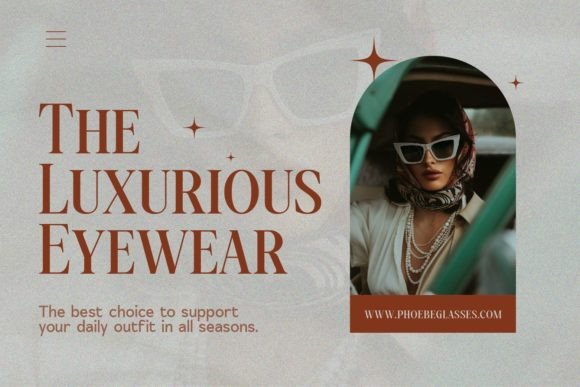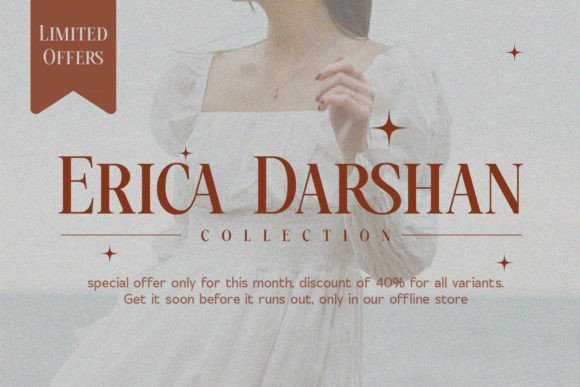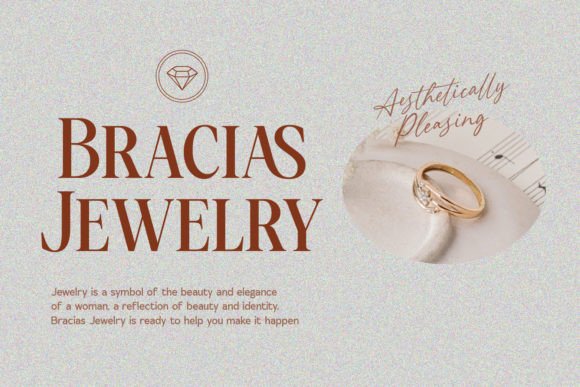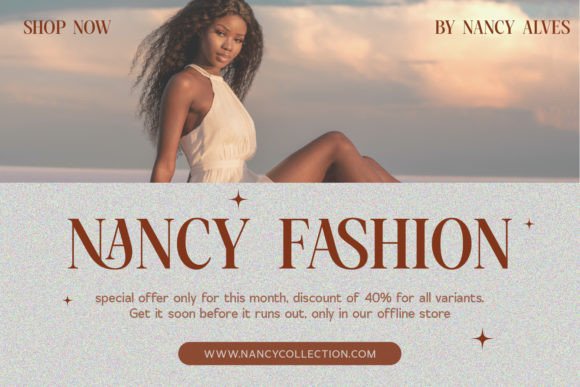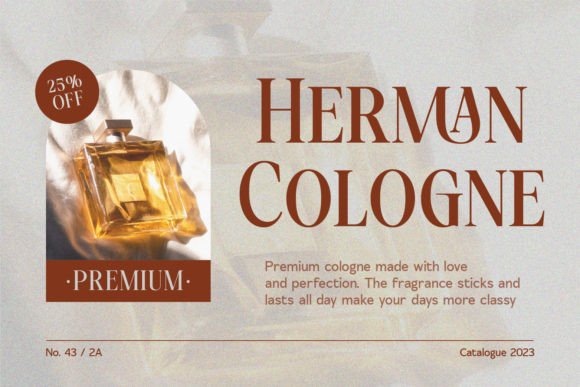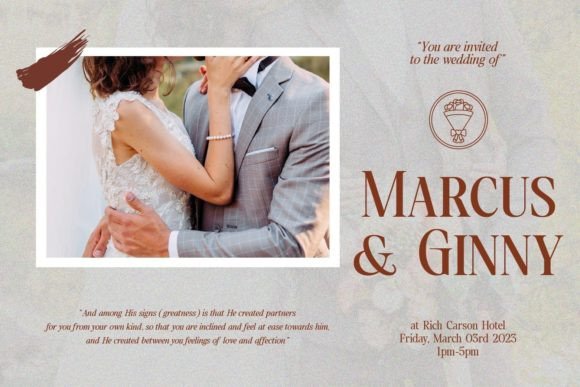
Introducing Calivoca Font: Elevate Your Designs with Elegance and Sophistication
In the world of typography, fonts play a crucial role in conveying the tone and aesthetic of a design. For those seeking a sophisticated and charming all-caps serif font with a fashionable touch, Calivoca is an exceptional choice. Specifically designed for luxury, elegant, and feminine projects, Calivoca is perfectly suited for creating modern, chic designs that exude refinement and poise.
What Makes Calivoca Stand Out?
Calivoca boasts a unique blend of classic serifs and contemporary flair, making it an ideal font for designers and crafters aiming to create high-end visuals. Its elegant and refined appearance is perfect for projects that demand a touch of sophistication, such as luxury logos and branding, classy editorial designs, and woman’s magazines.
Perfect for Luxury and Feminine Projects
Calivoca’s design is tailored to meet the needs of luxury and feminine projects. Its sophisticated and charming aesthetic makes it an excellent fit for:
• Luxury logo and branding: Create a lasting impression with a font that exudes elegance and refinement.
• Classy editorial design: Elevate your publications with a font that commands attention and respect.
• Woman’s magazines: Add a touch of femininity and sophistication to your content.
• Cosmetic brands: Convey a sense of luxury and high-end quality with Calivoca’s elegant appearance.
• Fashion promotional: Make a statement with a font that embodies style and sophistication.
• Art gallery branding: Showcase your art with a font that exudes refinement and culture.
• Art quote: Add a touch of elegance to your quotes and make them truly unforgettable.
• Home decor: Bring a sense of luxury and sophistication to your home decor designs.
• Book/cover title: Make a lasting impression with a font that commands attention and respect.
• Special events: Create memorable invitations and promotional materials with Calivoca’s elegant appearance.
Why Choose Calivoca Font?
With Calivoca, you can expect:
• A sophisticated and charming all-caps serif font that adds a touch of elegance to your designs.
• A fashionable touch that sets your designs apart from the rest.
• Perfect suitability for luxury, elegant, and feminine projects.
• Easy readability, even in smaller font sizes.
• A versatile font that can be used for a wide range of design applications.
Tips for Using Calivoca Font Effectively
To get the most out of Calivoca, consider the following tips:
• Pair Calivoca with a clean sans-serif font for a striking contrast.
• Use Calivoca as a headline font to draw attention to key messages.
• Experiment with different font sizes and colors to add visual interest.
• Take advantage of Calivoca’s elegant appearance by using it for titles and headings.
Calivoca Font is an exceptional choice for designers and crafters seeking a sophisticated and charming all-caps serif font with a fashionable touch. Its elegant and refined appearance makes it perfect for luxury, elegant, and feminine projects. With its versatility and easy readability, Calivoca is sure to elevate your designs and add a touch of sophistication to your visual creations.